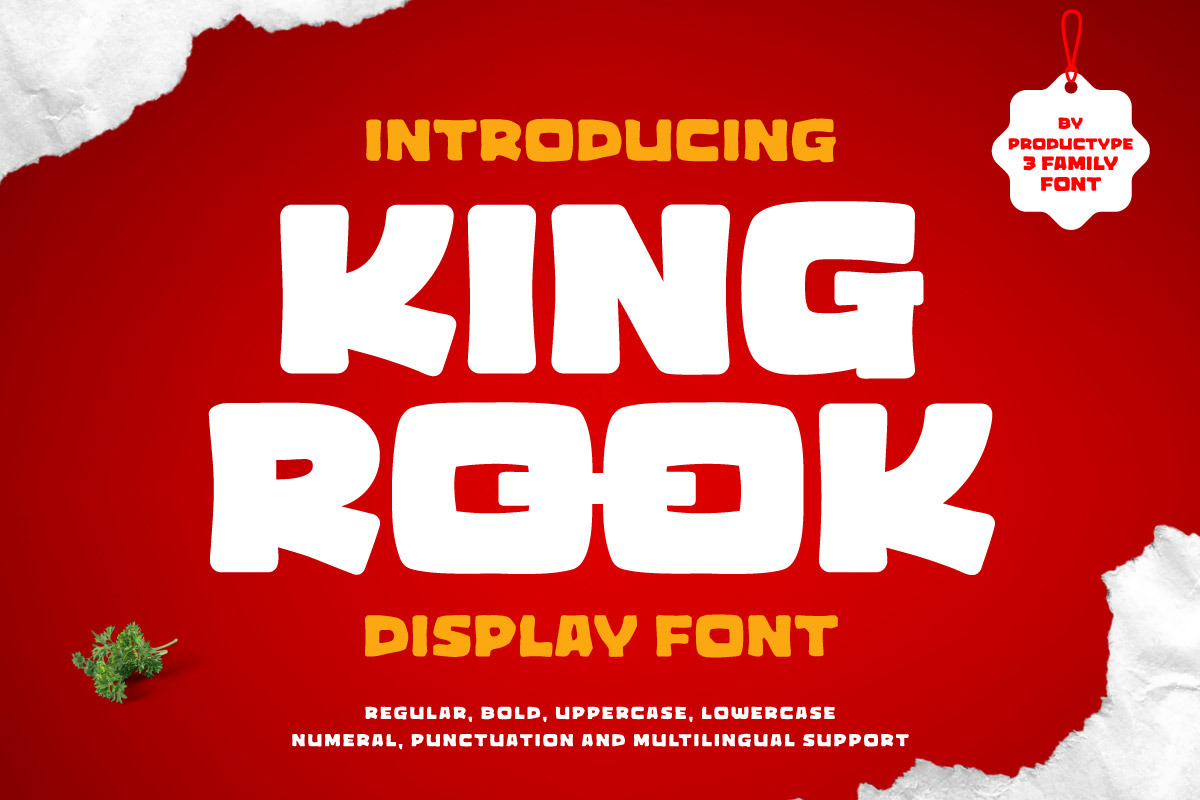
King Rook - Display Food Font
King Rook is a bold and flavorful display font inspired by the joy of food, fun, and creativity. Designed to grab attention with its chunky, quirky forms, King Rook is perfect for culinary-themed projects, playful branding, snack packaging, menu titles, and anything that craves a delicious visual twist.
This font family includes three versatile styles—Regular, Slant, and Rough—offering creative flexibility for designers. The Regular version is clean and bold, ideal for straightforward impact. The Slant style adds energetic movement, great for dynamic compositions. The Rough variant delivers a handcrafted, vintage vibe that feels authentic and artisanal—perfect for food trucks, cafés, or handmade product branding.
King Rook is easy to read yet full of personality, with multilingual support, punctuation, and compatibility across design platforms. Whether you're designing for a burger joint, candy label, or food festival, King Rook will add a bold bite to your typography.